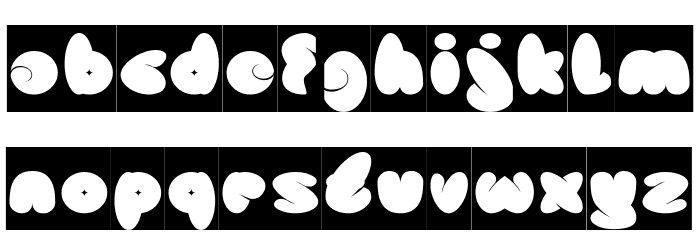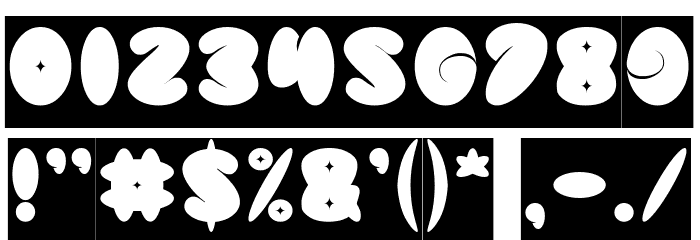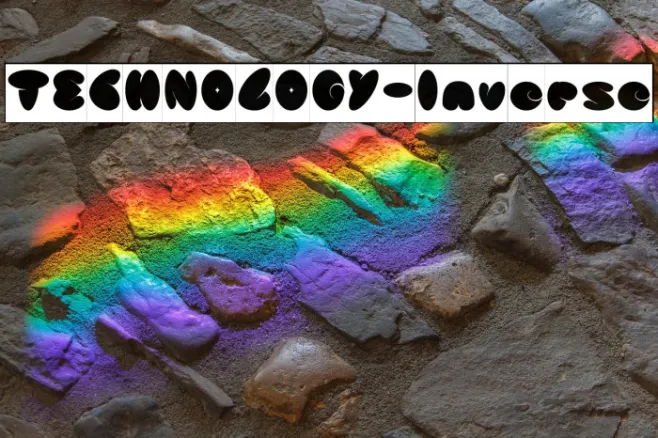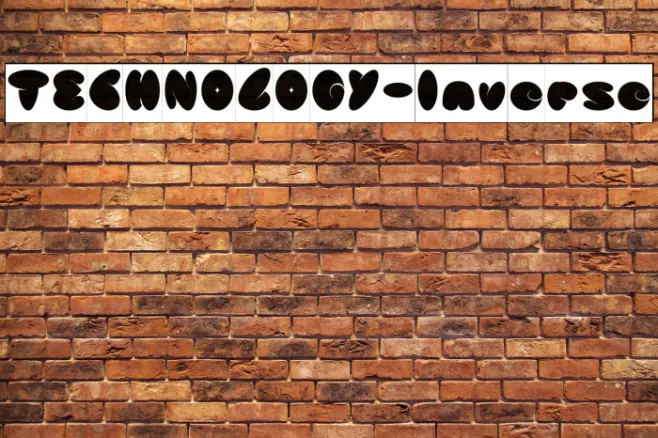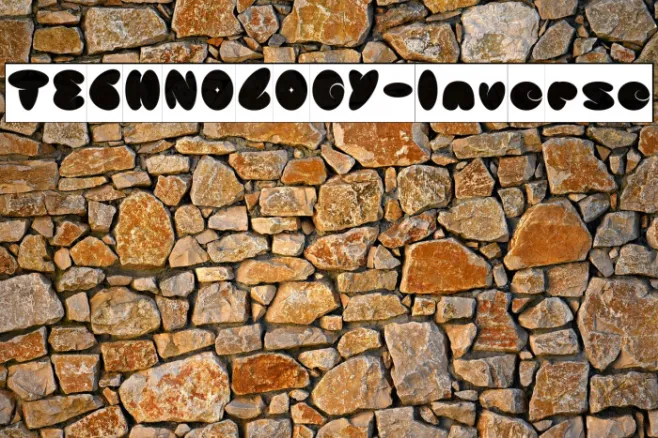
TECHNOLOGY-Inverse Font
This playful and bold font features rounded, bubble-like characters with a whimsical style. Each letter is uniquely designed with exaggerated curves and a soft, friendly appearance. The font's thick strokes and rounded edges give it a cartoonish and approachable feel, making it ideal for projects that require a fun and lighthearted touch. The characters are evenly spaced, ensuring readability despite their unconventional shapes. The font includes a full set of uppercase and lowercase letters, numbers, and a variety of special characters, all maintaining the same bubbly aesthetic.
A playful, bubble-like font with rounded, exaggerated characters.
- Proposed Projects: Ideal for children's books, playful branding, party invitations, and creative posters.
- Overall Style: Playful, Whimsical